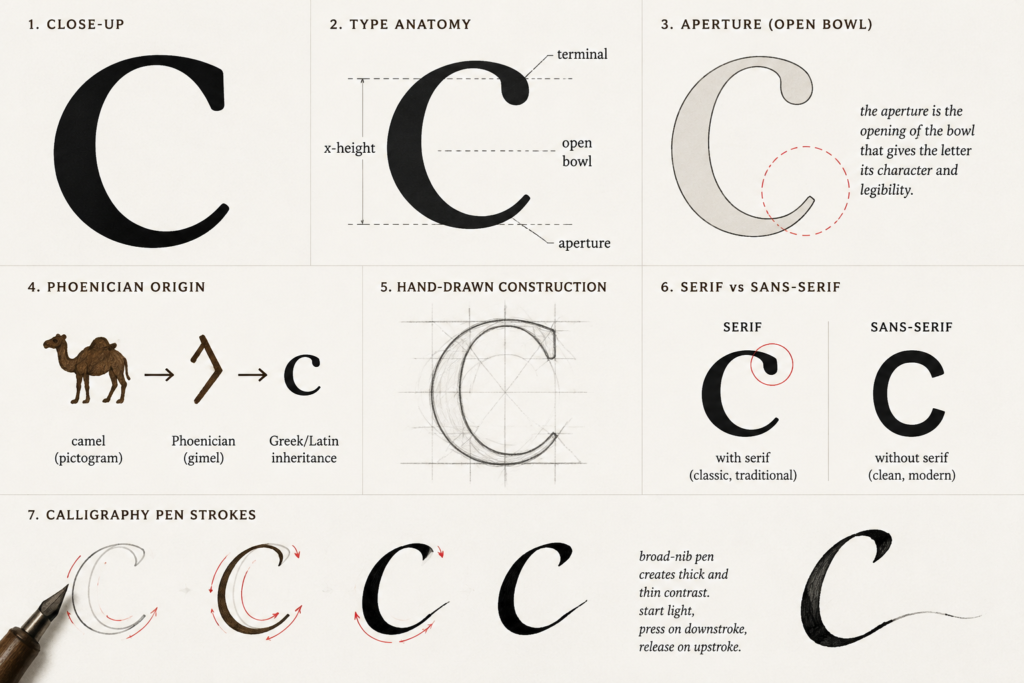
“c” looks like the easiest letter in the alphabet to draw — it’s just a broken circle, right? In practice, it’s one of the trickiest. That opening has to sit at exactly the right angle and width, or the letter reads as an “o,” a “e,” or nothing recognizable at all. This is the third entry in our glyph series, where we’re working through every character a font needs. So far we’ve covered “a” and “b.” Today: “c.”
A Short History of “c”
“c” traces back to the Phoenician letter gimel, which meant “camel” and is thought to have originally depicted a camel’s neck and head, or possibly a throwing stick — historians disagree. The Greeks adopted it as gamma, which produced a hard “g” sound, and its shape at that stage looked more angular, closer to a sharp corner than a curve.
When the Etruscans and then the Romans borrowed the Greek alphabet, something interesting happened: Etruscan didn’t distinguish clearly between the “g” and “k” sounds, so the letter that became Latin “C” ended up representing a hard “k” sound for a long time in early Latin, even though it kept gamma’s rounded descendant shape. Eventually the Romans split the letter in two — “C” stayed for the “k” sound in most contexts, and a new letter, “G,” was invented by adding a small stroke to “C” to represent the voiced sound separately. That’s why “C” and “G” still look so similar today; “G” is literally “C” with an addition bolted on.
The rounded, open shape softened further over centuries of handwriting, and by the time lowercase letterforms standardized during the Carolingian period, “c” had become the simple open curve we recognize today — one of the more visually stable letters across the whole history of the Latin alphabet.
Anatomy of a Lowercase “c”
Despite its simplicity, “c” has real technical vocabulary behind it. The main body is called the bowl, though unlike “b” or “o,” it’s an open bowl — the curve doesn’t close into a full loop. The gap at the end is called the aperture, and it’s arguably the single most important design decision in the entire letter.
Too wide an aperture, and “c” starts to look like a check mark or a stray bracket. Too narrow, and it starts collapsing into an “o,” especially at small text sizes where the eye doesn’t have much room to register the difference. The terminals — the ends of the stroke where the aperture opens — also matter a lot. They can be cut straight across, angled, or given a small flare, and each choice changes the letter’s personality substantially.
“c” also has a close structural relationship to “e,” “o,” and even “s,” since all of these letters share curved strokes that need to feel like they came from the same pen or tool. Type designers often check “c” against “o” specifically, making sure the curve tension — how quickly or slowly the stroke thins and thickens — stays consistent between the closed and open round letters.
Designing the Letter From Scratch
Designers typically start “c” right after finishing “o,” since “o” establishes the basic curve tension and stroke contrast for round letters in the typeface. From there, “c” is essentially “o” with a calculated bite taken out of it.
The hardest part is deciding where to place the aperture and how wide to make it. Most designers sketch several versions at different angles — top-right opening, more centered, more counter-clockwise — and test them at actual reading sizes, because an aperture that looks elegant blown up on a screen can completely disappear when printed small on a business card or an Etsy product mockup.
Terminal treatment comes next. A sharp, flat-cut terminal gives “c” a more modern, engineered feel, common in geometric sans-serifs. A terminal with a slight curl or ball gives it warmth, which is why you’ll see that treatment often in friendly display fonts and children’s book typefaces. In script fonts, the terminal often extends into a small flourish or connecting stroke, since “c” frequently needs to link smoothly to the next letter in cursive-style designs.
Once the aperture and terminals are locked, designers cross-check “c” against “e” and “o” side by side, adjusting stroke weight and curve tightness until all three round letters feel like they belong to the same family rather than three unrelated shapes that happen to be curved.
Unique Facts About “c”
“c” is one of the most frequently used consonants in English, largely because it appears in so many common digraphs — “ch,” “ck,” “sc” — beyond its standalone use. It’s also one of the few letters in English that represents two completely different sounds depending on context: a hard “k” sound in words like “cat,” and a soft “s” sound in words like “cent.” This dual pronunciation is a direct leftover from Latin’s inconsistent handling of the letter centuries ago.
“c” is also notable for being one of the letters most prone to what type designers call “false roundness” — because it lacks a straight stroke anywhere in its structure, tiny inconsistencies in its curve are far more visible to the eye than they would be in a letter with straight edges to anchor against.
Summary
Lowercase “c” is proof that simplicity in type design is an illusion — a single open curve carries enormous responsibility for legibility, and the tiniest shift in its aperture can make or break how the letter reads at small sizes. From a Phoenician camel or throwing stick, through a borrowed Greek “gamma,” to the split that eventually produced “G” as a separate letter entirely, “c” has one of the more tangled backstories in the alphabet despite looking like the plainest shape on the page. Next up: lowercase “d” — “b”‘s mirror-image cousin, and a letter with its own set of optical tricks.